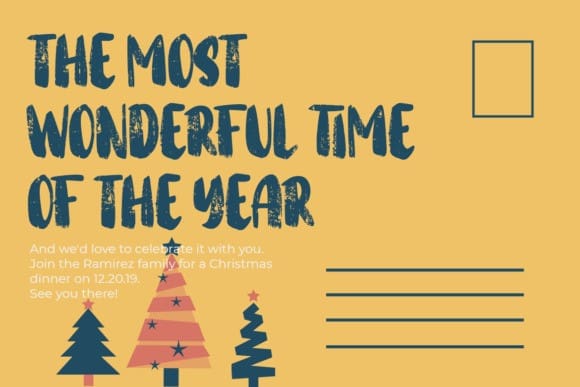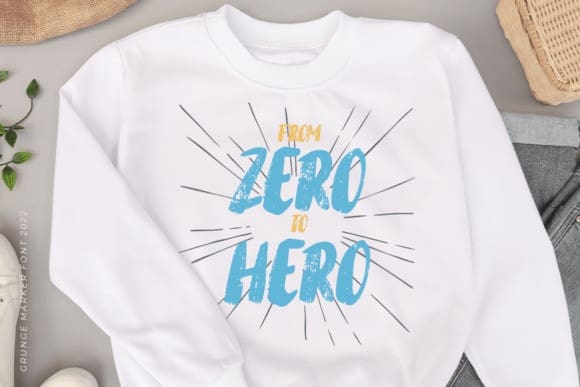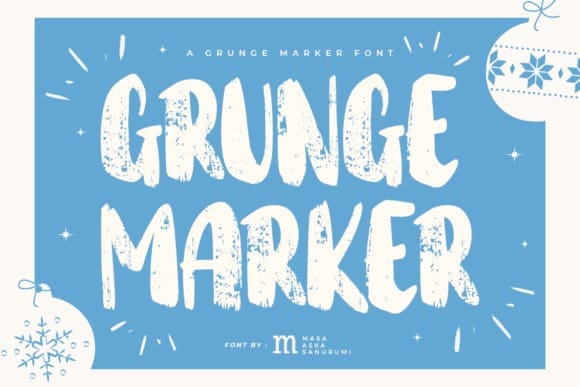
Grunge Marker Font
Grunge Marker Font is a versatile, stylish, and playful marker display font, perfect for a wide spectrum of applications such as greeting cards, headlines, and many more! Add it to any of your creative projects, and it will give them a cool and exquisite feel.